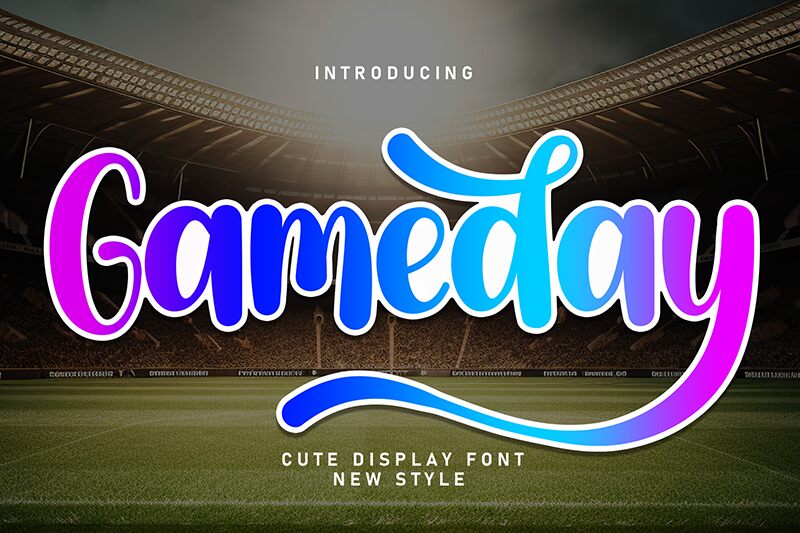
Gameday
Gameday font by Scratchones is a bold brush script font that embodies a casual, friendly, and lively appearance. The modern features of the typeface establish an impressive visual identity for projects where branding matters most. This free inspirational font is fun yet professional enough for attention-grabbing headlines, mass-selling posters, and much more.
Allowed uses of the Gamedya brush font include logotypes, digital marketing ads banners, product packaging labels, user interfaces (UI), and college or university projects. Other possibilities are business cards design development as well as invitations for informal events like parties or birthday celebrations.